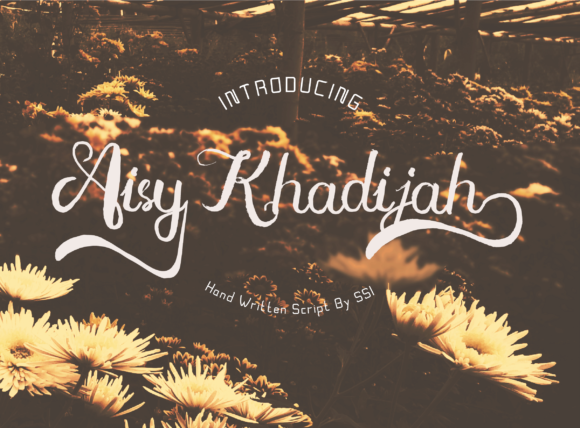
Introducing Aisy Khadijah Font: A Script that Captivates and Enchants
In the realm of artistic expression, where words dance and meanings unravel, the Aisy Khadijah Font emerges as a breathtaking script, ready to transform your designs into captivating masterpieces. Created by the visionary artist Syukursetiyadi, this font is more than just a collection of letters; it's a gateway to a world of elegance, creativity, and boundless possibilities.
Woven with the threads of Syukursetiyadi's meticulous artistry, the Aisy Khadijah Font embodies a rare fusion of grace and boldness. Its enchanting curves and sweeping strokes evoke a sense of timeless beauty, while its intricate details add a touch of intrigue and depth. With every letter meticulously crafted, this font promises to elevate your designs to new heights of sophistication.
Whether you're a seasoned designer seeking to add a touch of individuality to your projects or an aspiring creative yearning to leave your mark on the world, the Aisy Khadijah Font is your perfect companion. Its versatility knows no bounds, making it ideal for a wide array of applications, from wedding invitations and greeting cards to logos, posters, and social media graphics.
Indulge in the artistry of the Aisy Khadijah Font and watch as your designs come alive with a captivating charm that will leave a lasting impression. Let your creativity soar as you explore the endless possibilities that await within the strokes of this exquisite script.
Beyond its aesthetic appeal, the Aisy Khadijah Font possesses a magnetic allure that draws the eyes and captivates the senses. As if imbued with a magical aura, this font commands attention and leaves an indelible mark on the hearts of those who encounter it.